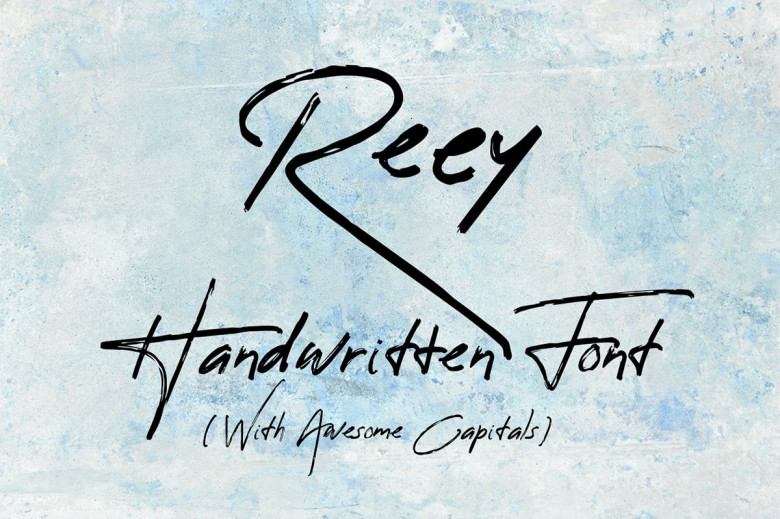
Reey Script Font
I would like to introduce you to a new font brush. That is: Reey, it is was designed and shares by Koen van der Bliek. It’s a hand brushed script created with a brush and ink. Reey is perfect for fashion, e-commerce brands, trendy blogs, or any business that wants to have a handwritten touch!